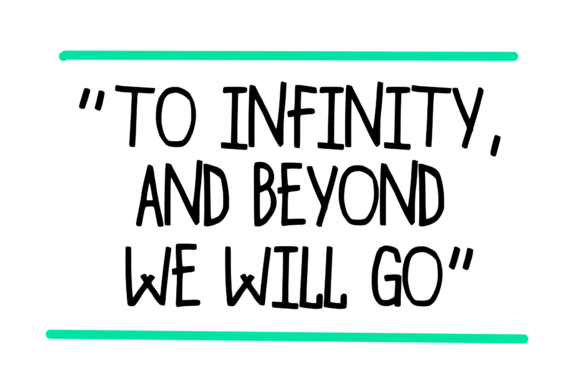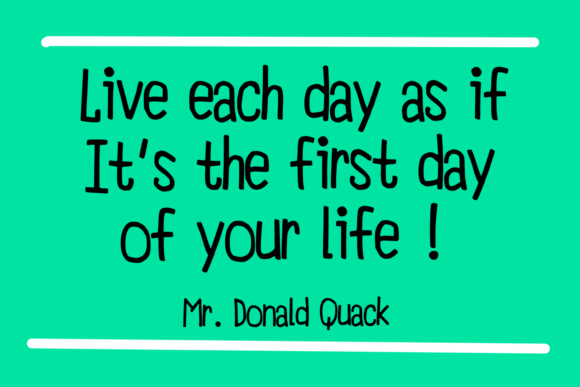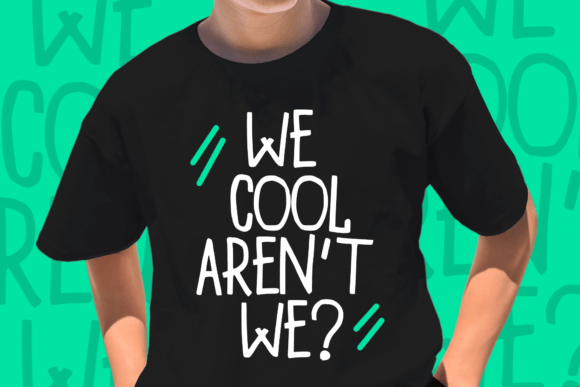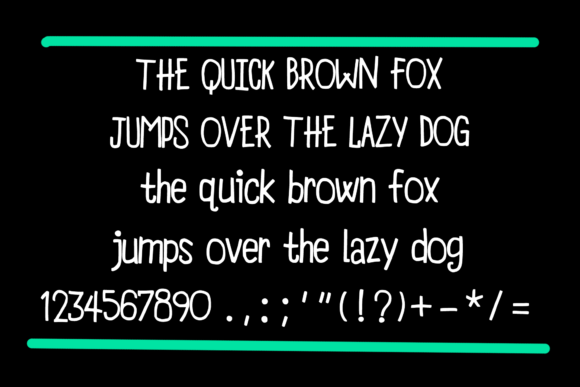
Introduction to Office Informal Font
Office Informal is a playful daily handwritten font.
It will elevate a wide range of design projects to the highest level You can use this font for many design ideas such as daily typing works, blog writing, stickers, t-shirt designs, amazing logo designs, magazine or book covers, comics, cartoon drawings, and many more.